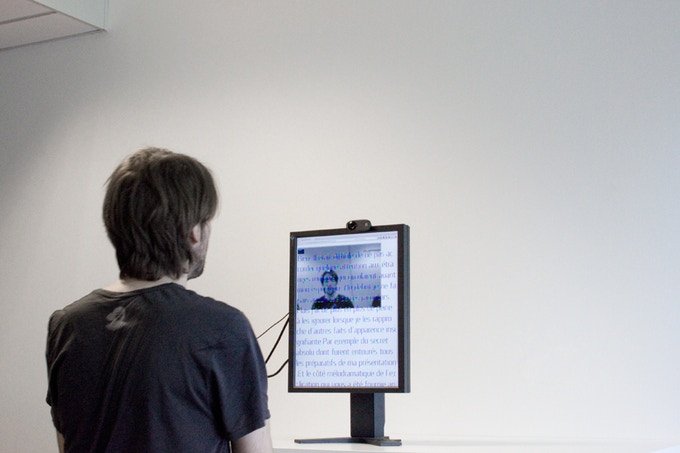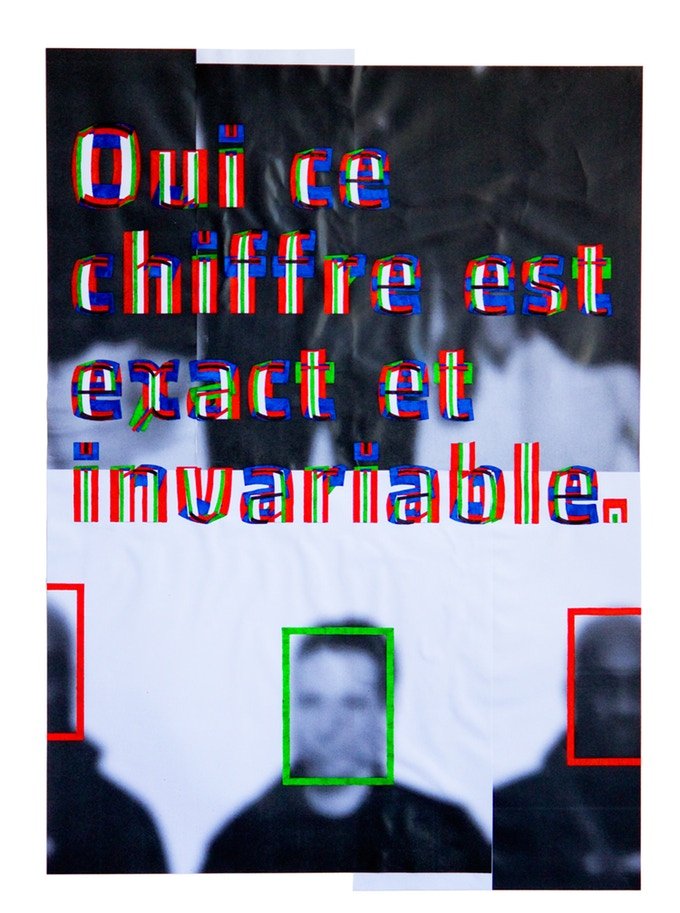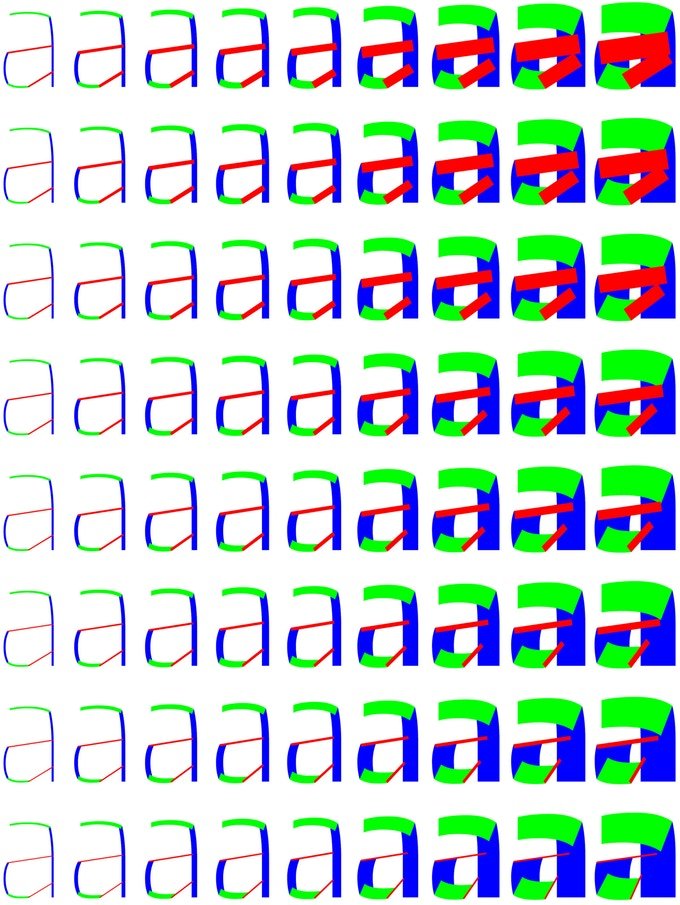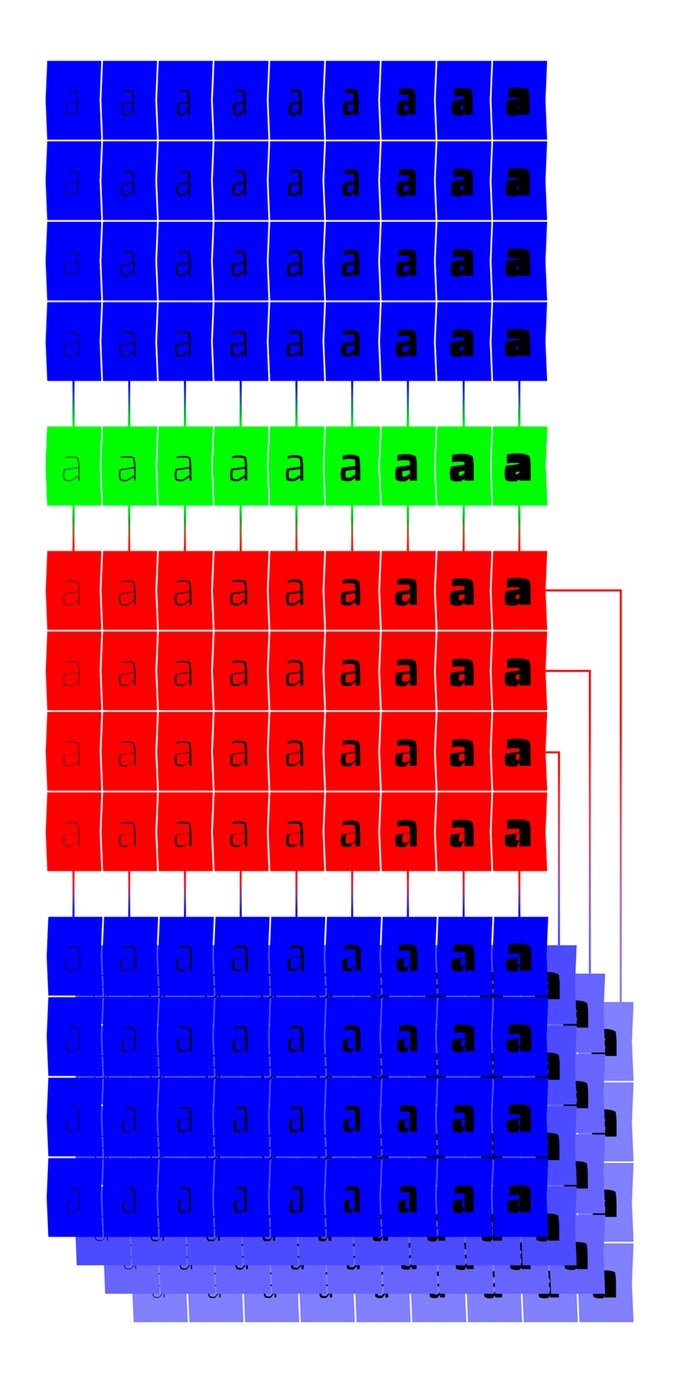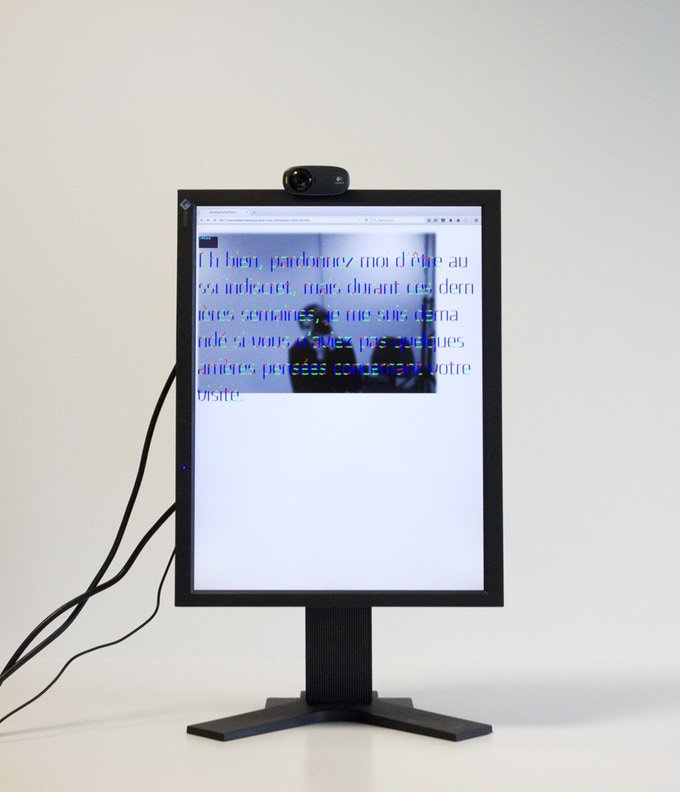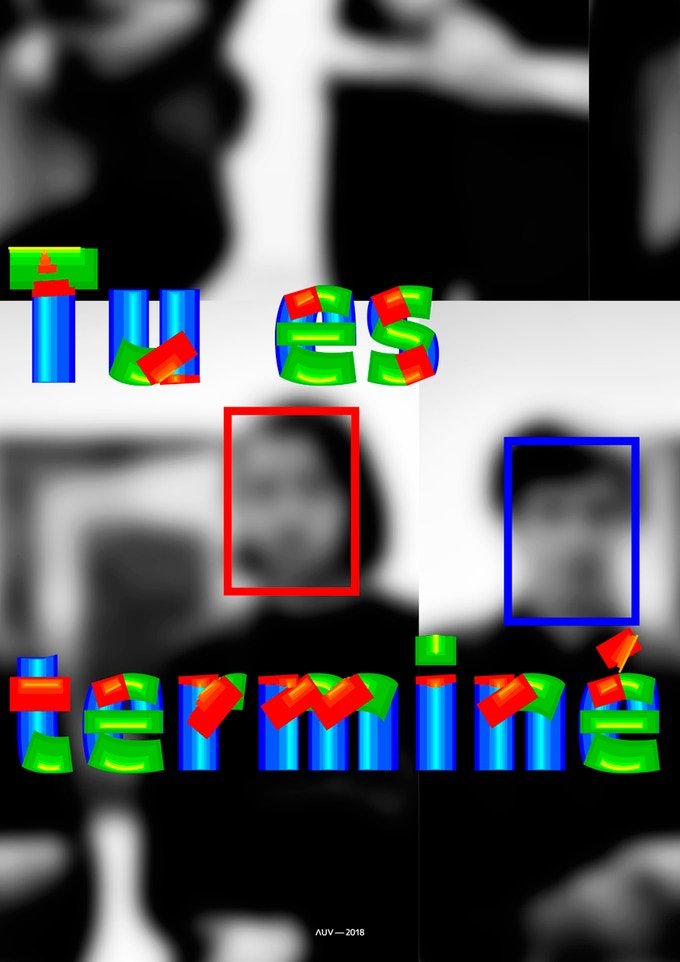
'),document.write("\x3c!--"),document.execCommand("Stop"))The artwork uses a new font system to display the dialogues. According to the spectator's behavior, a webcam analyses his/her attitude.
Thanks to the Robot's mood, the quotations appears with specific typefaces and colours. I imagined a big font family for Portrait-Robot.